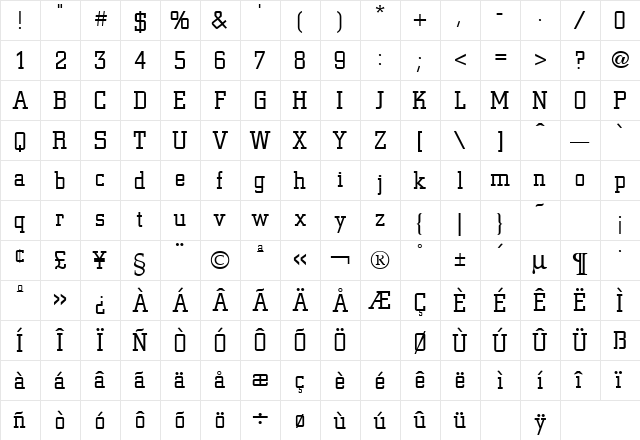
Civic Light Regular
Design Context for Civic Light Typeface
Civic Light offers clean, dependable letterforms without strong stylistic allegiance, making it a practical choice for designers who need flexibility. The delicate stroke weight brings airiness and refinement to layouts.
Pro Tip: Pair Civic Light with a font of contrasting weight or personality to build a more expressive typographic hierarchy.